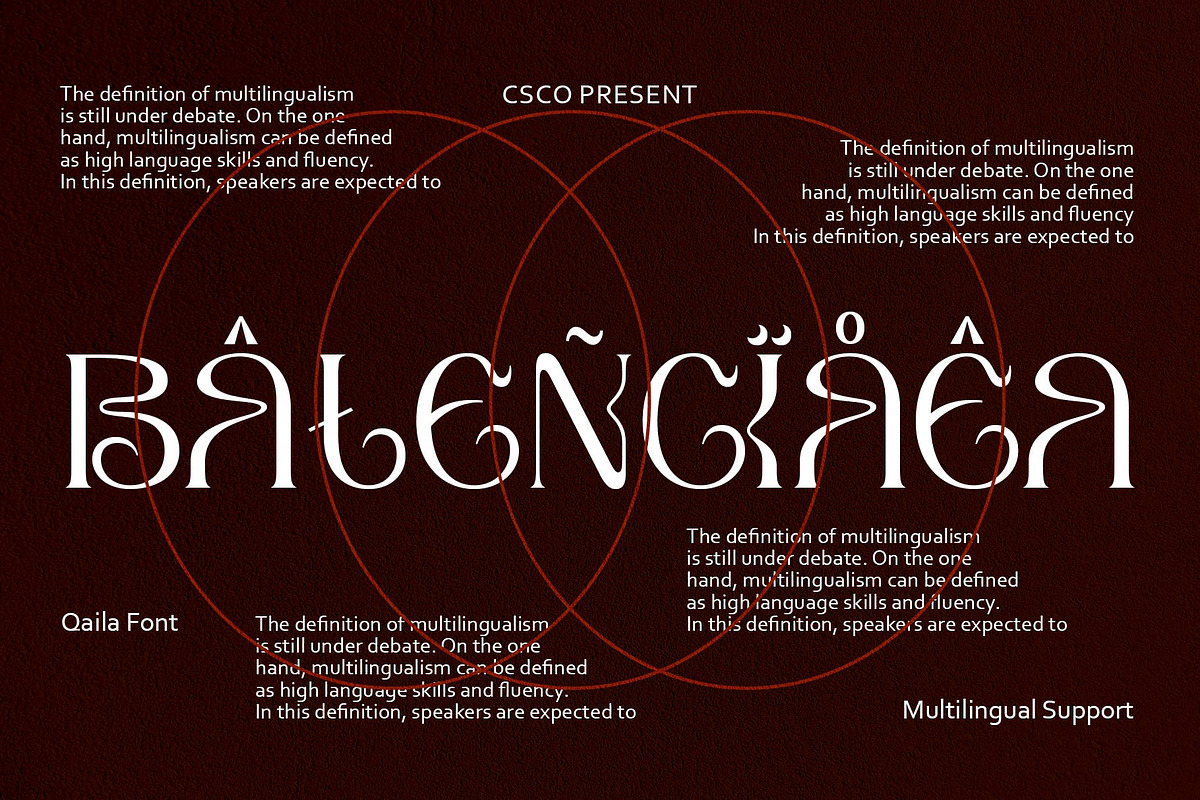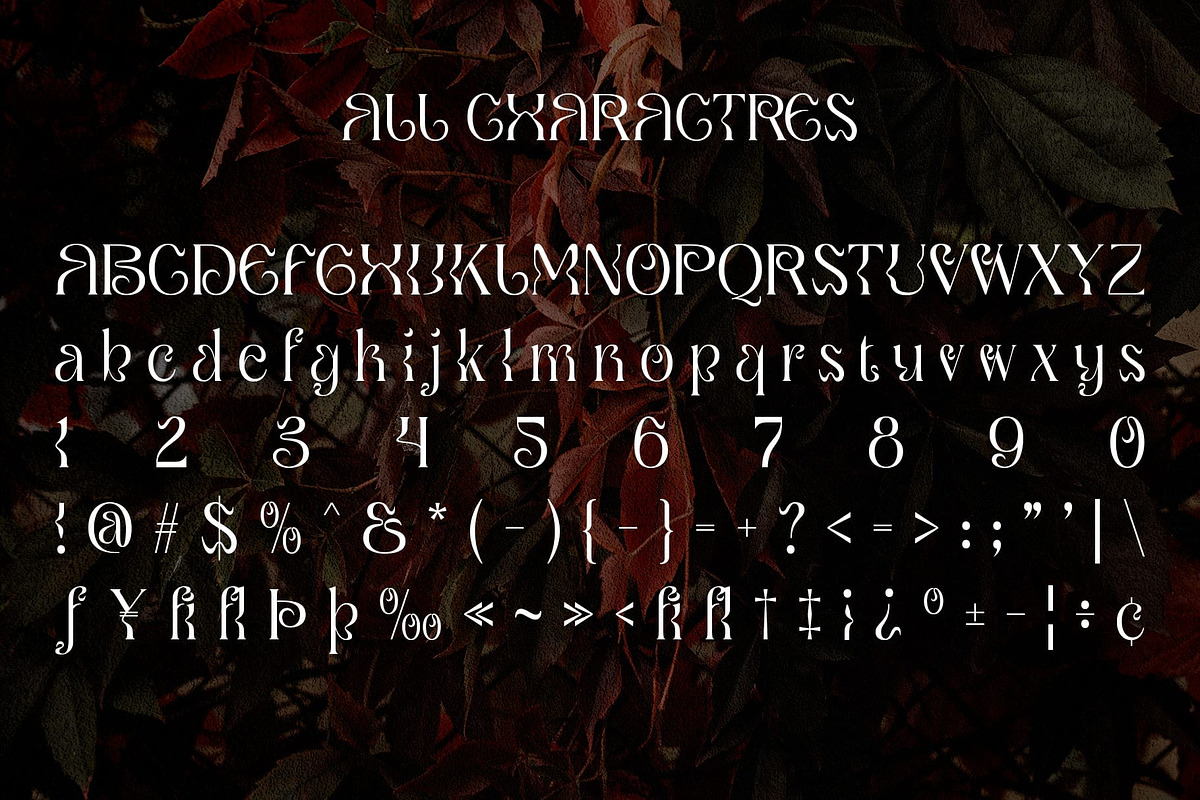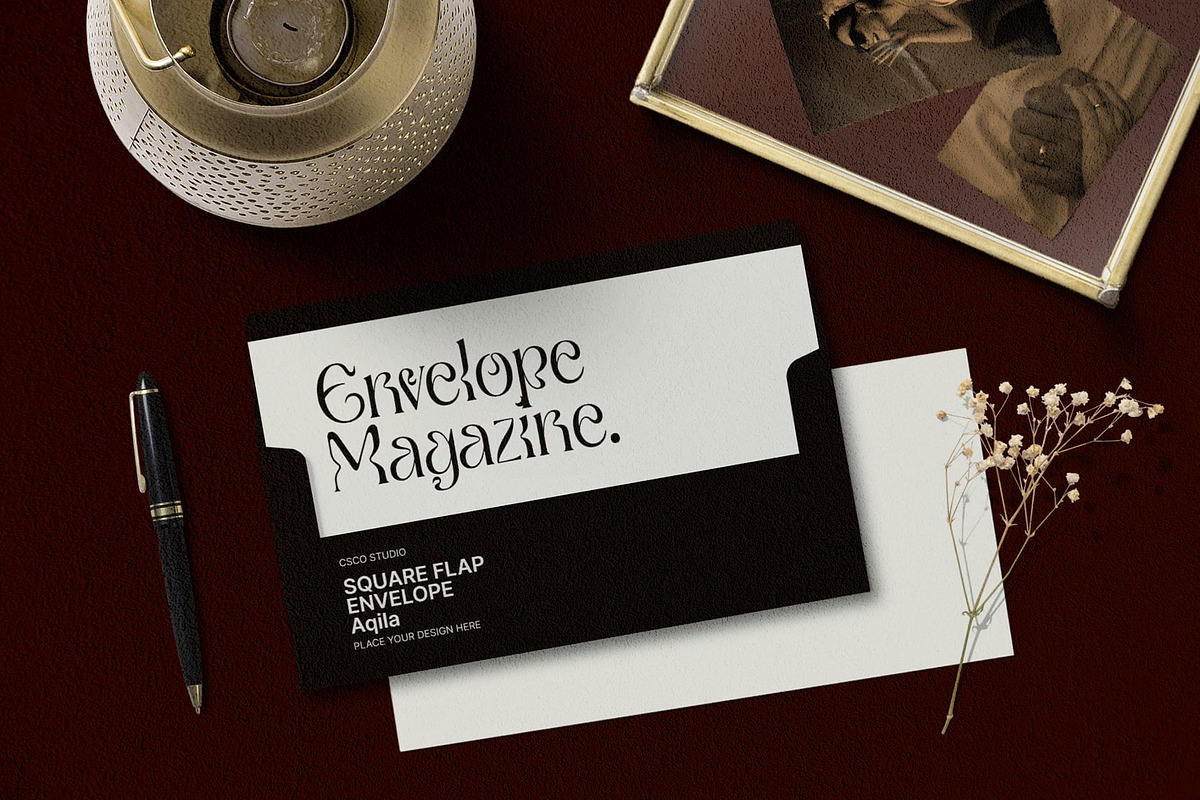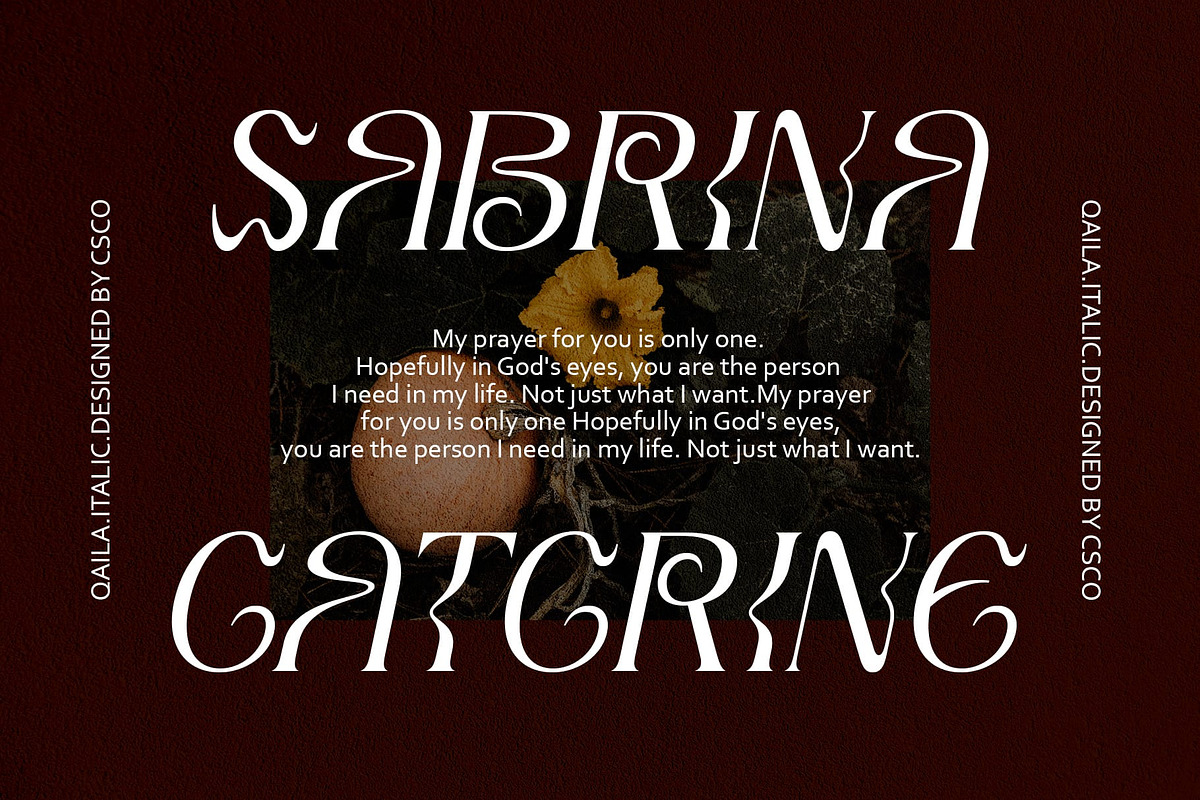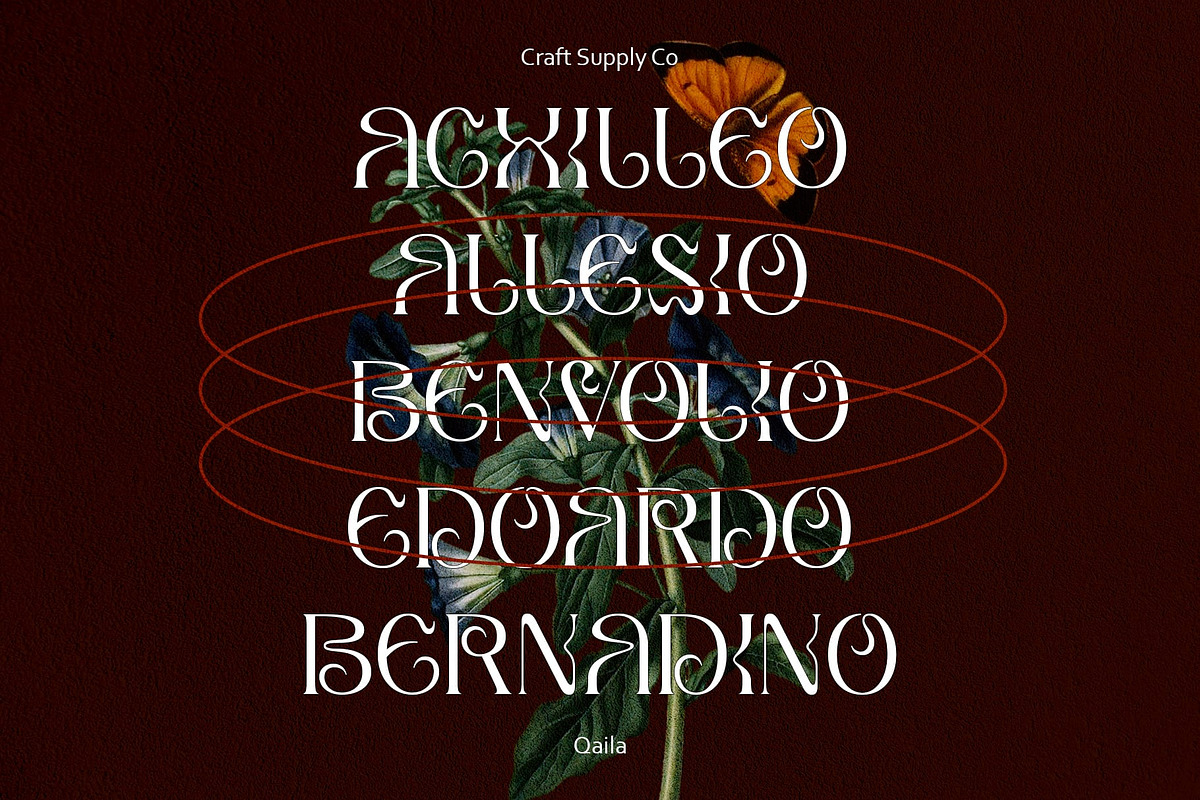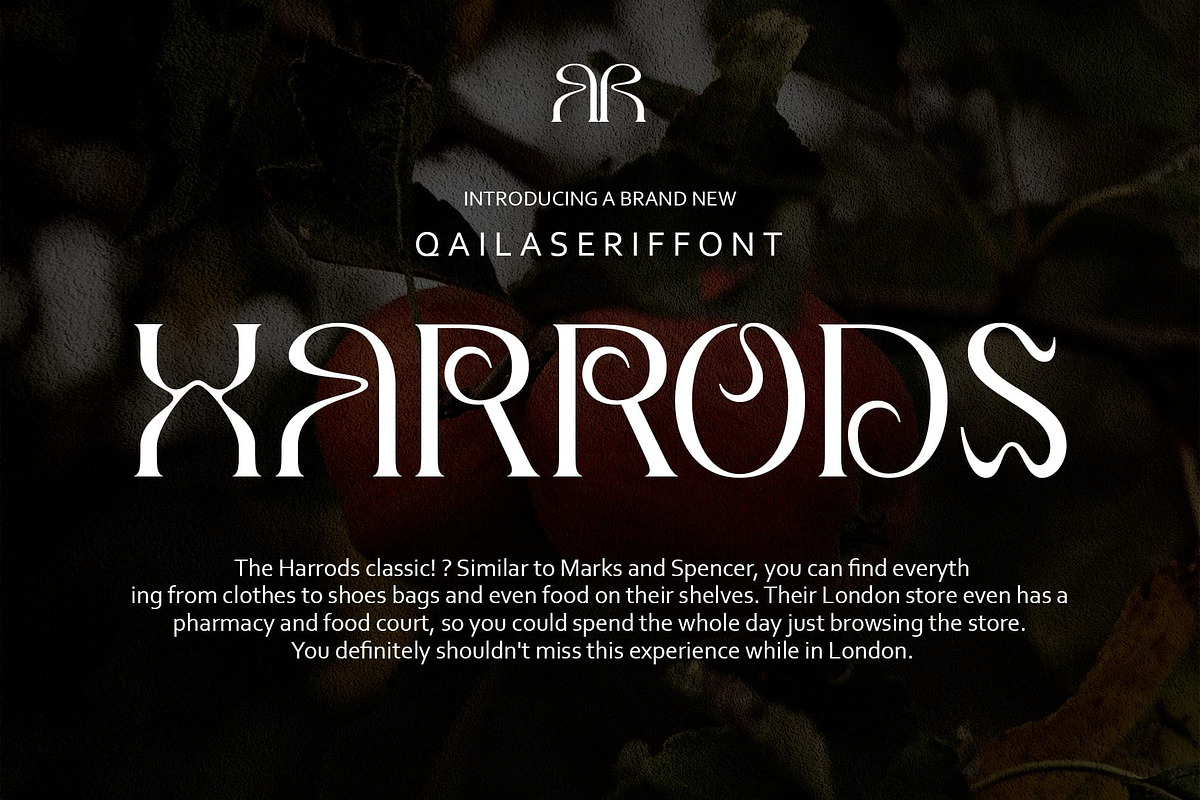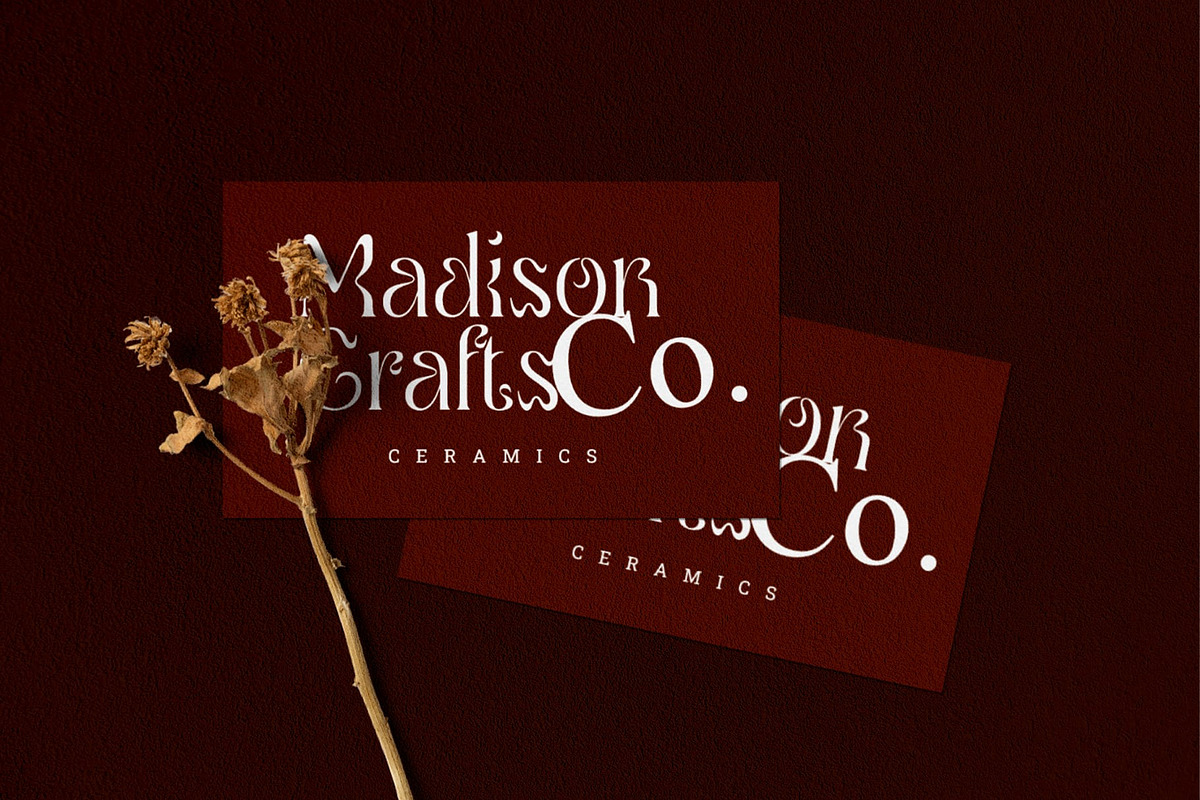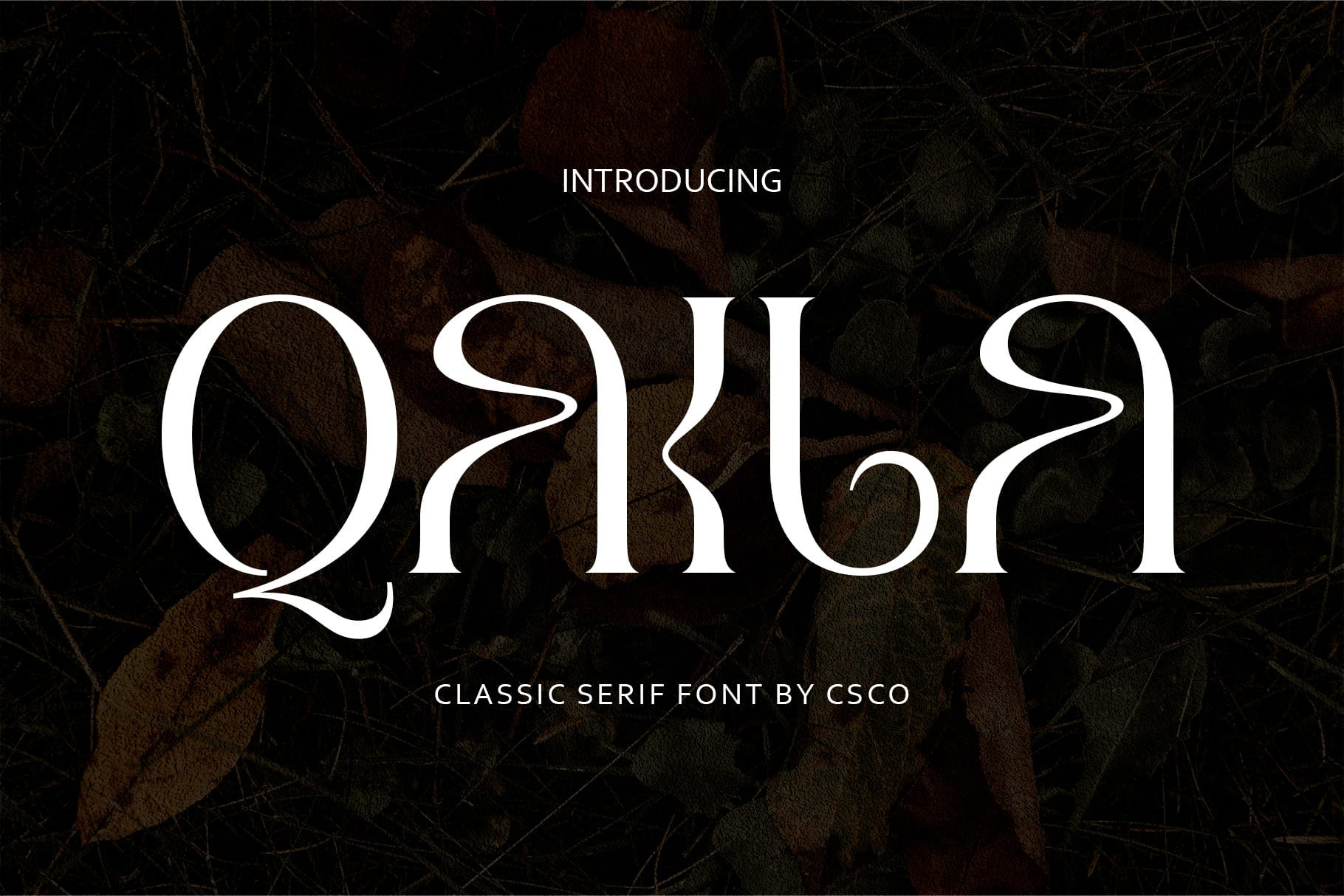
Qaila – Serif Typeface
Qaila Font: A Trippy Serif Experience
Psychedelic Origins Qaila, a serif typeface, draws inspiration from the mind-bending world of psychedelia, creating a unique and trippy visual language.
Vibrant and Intricate With intricate details and vibrant strokes, Qaila captures the essence of psychedelia, making it an ideal choice for projects seeking a mind-altering vibe.
Serif Sophistication, Psychedelic Twist Qaila seamlessly blends the sophistication of serif fonts with a psychedelic twist, resulting in a typeface that’s both refined and mesmerizing.
Endless Possibilities Ideal for album covers, posters, or any project aiming for an otherworldly touch, Qaila opens up endless creative possibilities in the realm of typography.
Conclusion Qaila font isn’t just an ordinary typeface; it’s a journey into the surreal. Dive into the world of trippy serifs with Qaila, where sophistication meets psychedelia, creating a visual experience that transcends the ordinary.